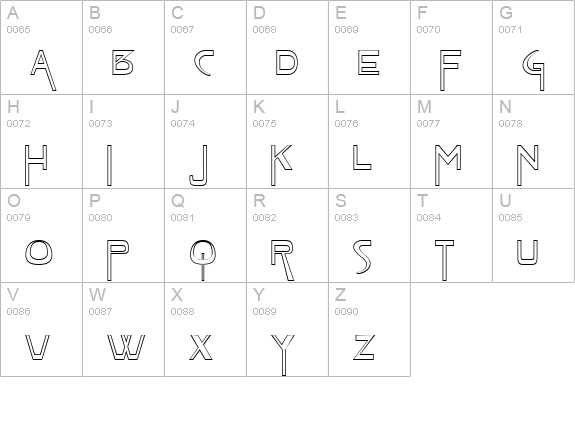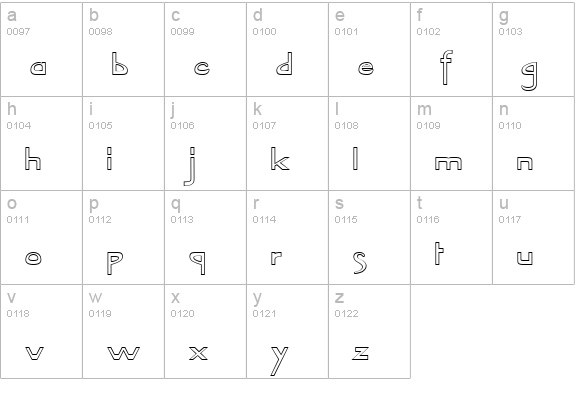
TabletHollowExtended Normal is the standard, neutral variant in the TabletHollowExtended typeface family \xE2\x80\x94 well suited to general body text, paragraphs, and standard typographic work.
TabletHollowExtended Normal font is a sleek and modern typeface that adds a touch of sophistication to any design project. Its clean lines and geometric shapes give it a contemporary look, making it perfect for both digital and print applications. With its extended character set, TabletHollowExtended Normal font offers a wide range of options to express your creativity. Whether you're designing a logo, creating a website, or working on a poster, this font has the versatility to suit any style or theme. What makes TabletHollowExtended Normal font even more appealing is that it is freely available to download at FontsMarket.com. You can easily access this font and integrate it into your projects without any hassle. Its availability for free ensures that you can use it without any limitations, making it a valuable resource for designers and creatives. The TabletHollowExtended Normal font is designed with legibility in mind, making it easy to read in both small and large sizes. Its balanced letterforms and generous spacing enhance readability, ensuring that your message is delivered with clarity and impact. Whether you're a professional designer or a hobbyist, TabletHollowExtended Normal font is a must-have in your font collection. Its versatility, modern aesthetic, and ease of use make it a valuable asset for any design project. Download it for free at FontsMarket.com and elevate your designs to the next level.